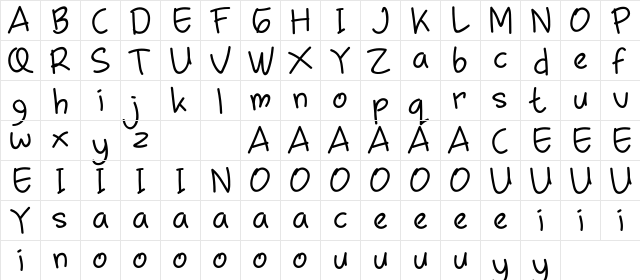
Chamilla Kids Regular
Design Context for Chamilla Kids Typeface
Chamilla Kids has an approachable, lighthearted character — its loose, expressive forms are well-suited to children's content, casual branding, and fun-first design.
Font Pairing: Pairs well with a rounded or humanist sans for body copy, maintaining the friendly tone without relying on Chamilla Kids to carry extended reading.
Pro Tip: Use Chamilla Kids at larger display sizes where its expressive character can land. Pair with a clean, simple sans for body copy to maintain readability.